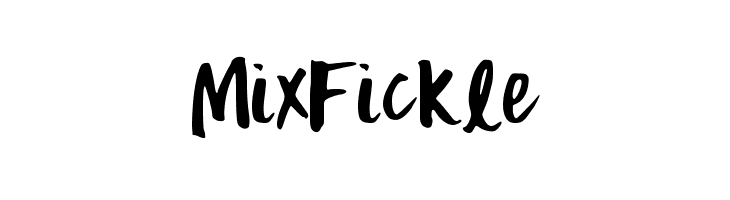
A vintage-inspired font with a slanted, elegant style and decorative elements.
A bold, hand-drawn font with a textured, graffiti-like appearance.
A modern, geometric font with tall, narrow characters and uniform stroke width.
Elegant serif font with italic style and moderate contrast.
A whimsical collection of decorative animal-like characters with a hand-drawn style.
A bold, geometric font with a modern and robust style.
A playful, informal handwritten font with a whimsical and dynamic style.
A bold, edgy font with a cut-out, collage-like appearance.
设计师偏爱 CF Old Photograph Credit Regular, Uglygoodbaddark, Bologna Sansish, OPTIGargoyle-Italic and Wacominals,因为其造型干净、适用范围广—— 从品牌识别到落地页、海报都能胜任。